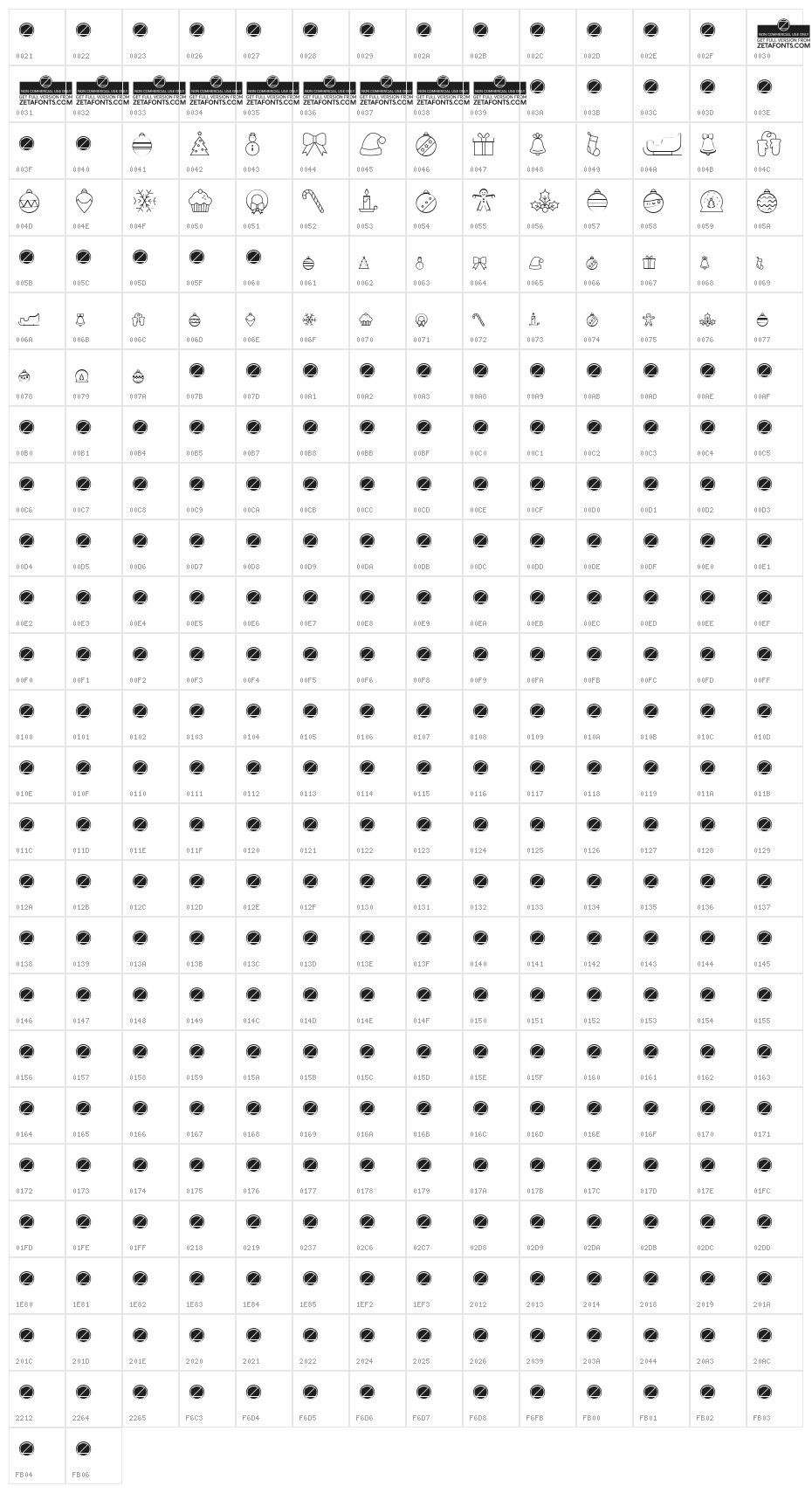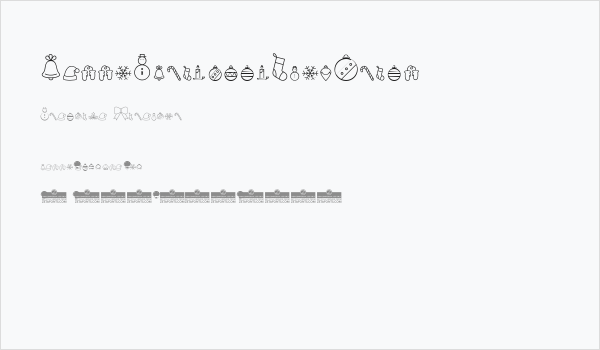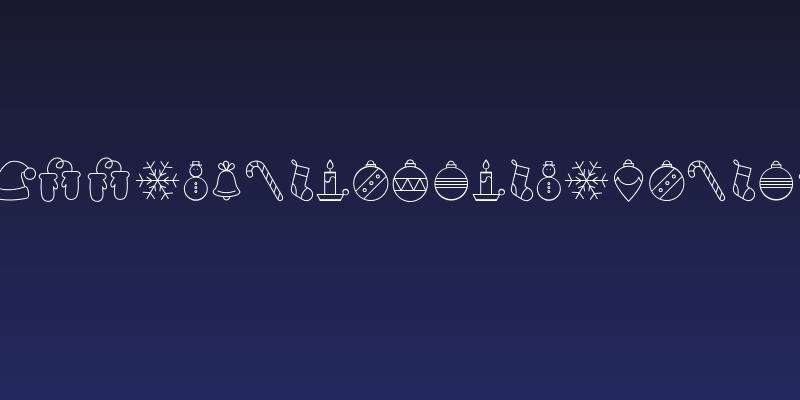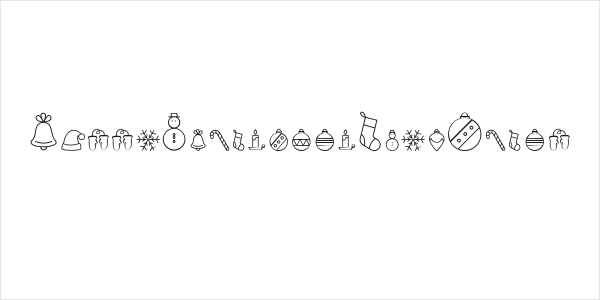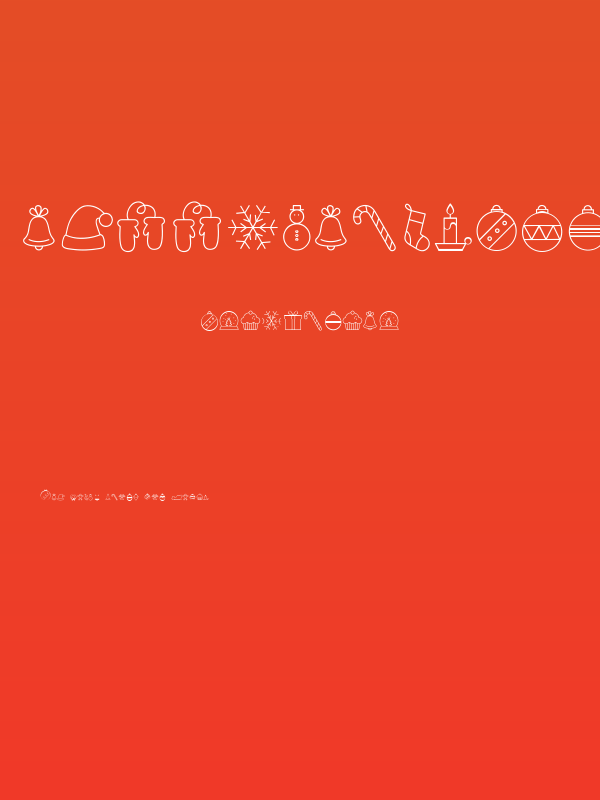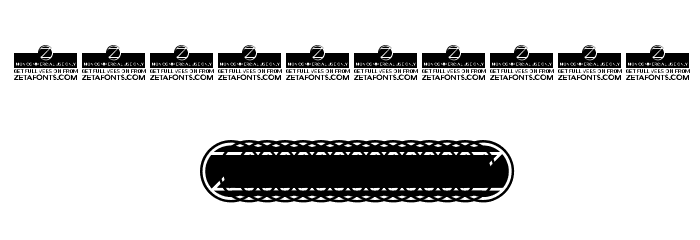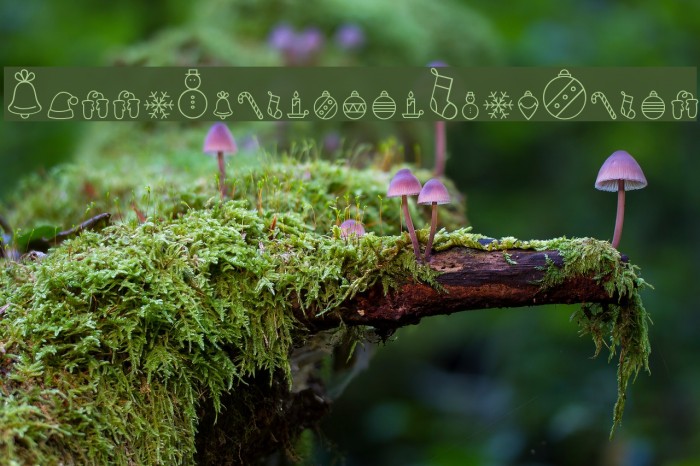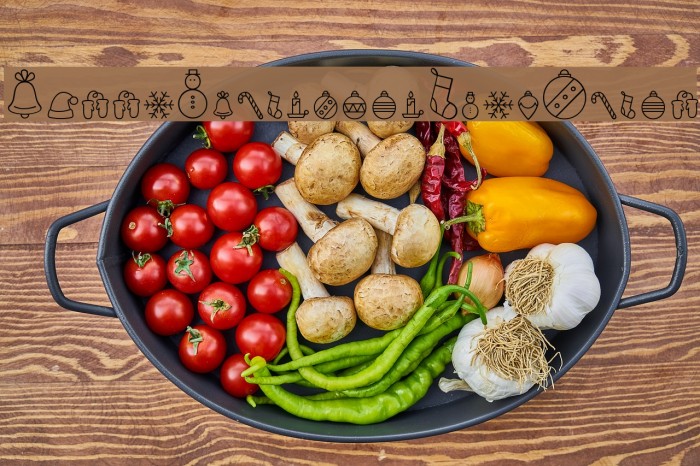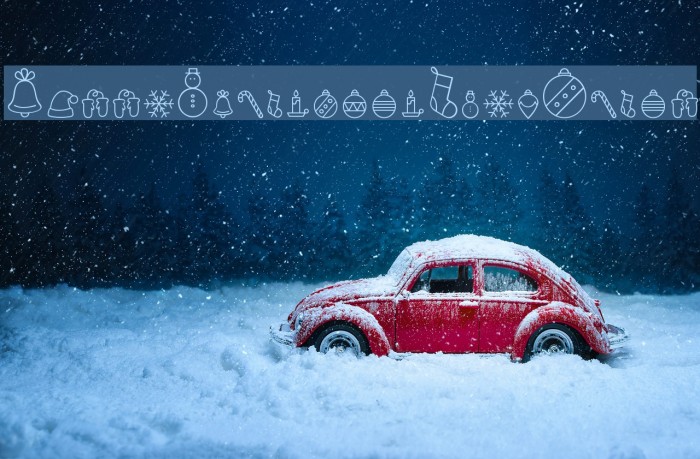
HelloChristmasIconTrial Font
HelloChristmasIconTrial Description
A decorative icon set featuring outlined Christmas-themed illustrations such as ornaments, trees, snowmen, bows, hats, gifts, stockings, sleighs, bells, holly, and gingerbread figures. The icons are simple, clean, and consistent in line weight, with a playful and festive style suitable for holiday designs.
| Overall Style | Decorative, Festive, Playful |
| Use Case | Icons, Decorative elements, Themed graphics |
| Proposed Projects | Holiday cards, festive invitations, seasonal web graphics, gift tags, social media posts, and decorative packaging. |